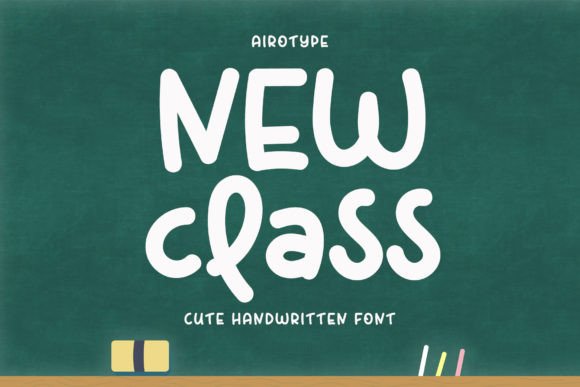
Ignite the imagination of young readers with New Class Font, a captivating and whimsical handwritten font designed to bring life to children's ebooks. Step into a world of playful storytelling where every letter dances with delight, inviting readers on an enchanting journey.
Crafted with care by airotype, New Class Font exudes a charming, school-themed personality that resonates with children's hearts. Its playful characters seem to leap off the page, transforming ordinary words into extraordinary adventures. This font is more than just a visual delight; it's an interactive experience that engages young minds and nurtures their love for reading.
Picture the joy on your child's face as they dive into a world crafted with New Class Font. Its sweet and playful essence perfectly captures the magic of childhood, making every story feel like a treasured adventure. Let your child's imagination soar as they explore enchanting tales, their eyes following the graceful curves and cheerful lines of this captivating font.
With New Class Font, your child's ebooks become more than just words on a screen; they transform into interactive playgrounds where imaginations run wild. Each letter becomes a playful character, each word a stepping stone in a fantastical journey. Unlock the boundless creativity within your child and let them embark on a literary odyssey like no other.